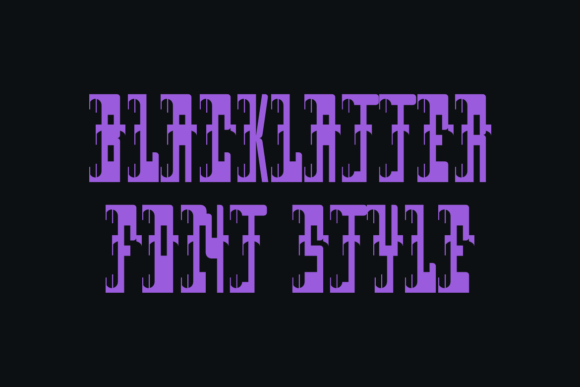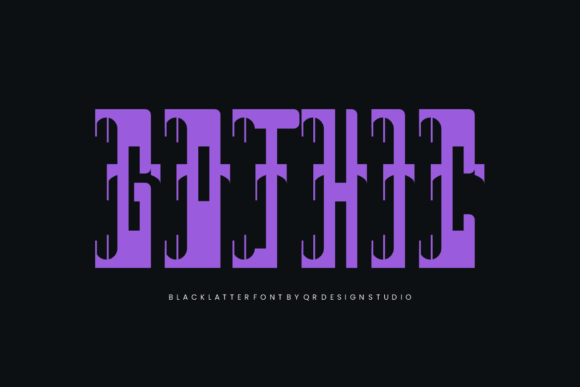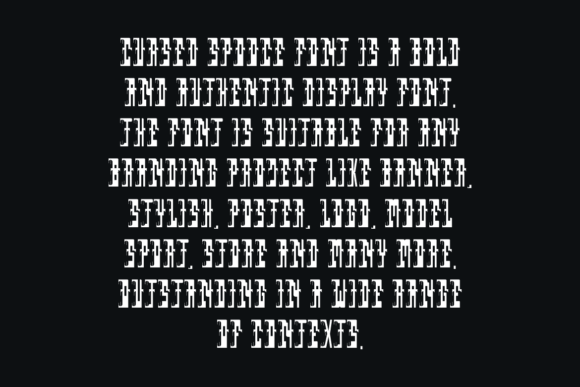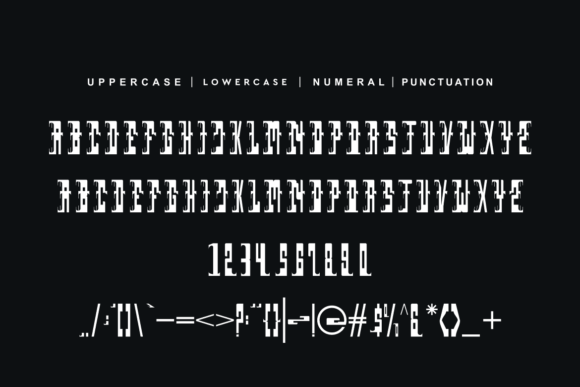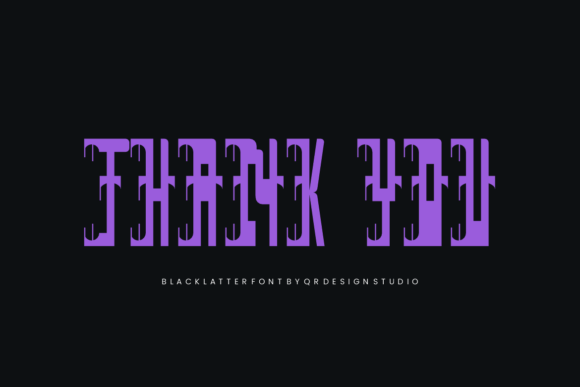
Cursed Spooce Font: The Ultimate Gaming and Sports Font for Bold Branding
In the world of design, fonts play a crucial role in creating a lasting impression. For gamers and sports enthusiasts, a bold and authentic display font can elevate branding projects to new heights. This is where the Cursed Spooce Font comes into play. Designed to be a game-changer, this font is perfect for logos, sports, and various other branding projects. In this article, we’ll dive into the world of Cursed Spooce Font and explore its features, benefits, and uses.
What is Cursed Spooce Font?
Cursed Spooce Font is a bold and authentic display font designed specifically for gaming and sports branding projects. Its unique style and structure make it stand out in a wide range of contexts, from logos and posters to jerseys and merchandise. The font’s design is inspired by the world of gaming and sports, making it an ideal choice for designers and crafters looking to create bold and eye-catching designs.
Key Features of Cursed Spooce Font
- Bold and Authentic: Cursed Spooce Font is designed to be bold and authentic, making it perfect for creating striking designs that grab attention.
- Display Font: This font is specifically designed as a display font, ideal for headlines, titles, and logos.
- Versatile: Cursed Spooce Font can be used in a wide range of contexts, from gaming and sports to fashion and lifestyle branding projects.
- Easily Readable: Despite its bold design, Cursed Spooce Font is easily readable, making it perfect for use on various merchandise, such as jerseys, posters, and logos.
Benefits of Using Cursed Spooce Font
Using Cursed Spooce Font can bring numerous benefits to designers and crafters. Some of the key benefits include:
- Unique Designs: With Cursed Spooce Font, designers can create unique and eye-catching designs that stand out from the crowd.
- Time-Saving: The font’s bold and authentic design saves designers time and effort, as they don’t need to spend hours creating a custom font.
- Consistency: Using a single font across various branding projects ensures consistency and helps build a strong brand identity.
Use Cases for Cursed Spooce Font
Cursed Spooce Font is an incredibly versatile font that can be used in various contexts. Some of the most popular use cases include:
- Logo Design: The font’s bold and authentic design makes it perfect for creating striking logos that represent gaming and sports brands.
- Sports Jerseys: Cursed Spooce Font is ideal for designing sports jerseys, as it’s easily readable and bold enough to stand out.
- Posters and Flyers: The font’s display design makes it perfect for creating eye-catching posters and flyers for gaming and sports events.
- Merchandise: Cursed Spooce Font can be used on various merchandise, such as hats, mugs, and phone cases, to create bold and eye-catching designs.
Tips for Using Cursed Spooce Font
To get the most out of Cursed Spooce Font, here are some tips to keep in mind:
- Use it Boldly: Cursed Spooce Font is designed to be bold, so don’t be afraid to use it in large sizes to create striking designs.
- Pair it with Other Fonts: The font can be paired with other fonts to create a unique and visually appealing design.
- Experiment with Colors: Cursed Spooce Font looks great in various colors, so experiment with different colors to find the perfect combination for your design.
Cursed Spooce Font is a game-changing font designed specifically for gaming and sports branding projects. Its bold and authentic design makes it perfect for creating striking logos, jerseys, posters, and merchandise. With its versatility, ease of use, and unique style, Cursed Spooce Font is an excellent choice for designers and crafters looking to elevate their branding projects. Whether you’re a professional designer or a DIY enthusiast, Cursed Spooce Font is sure to become a valuable addition to your font library.